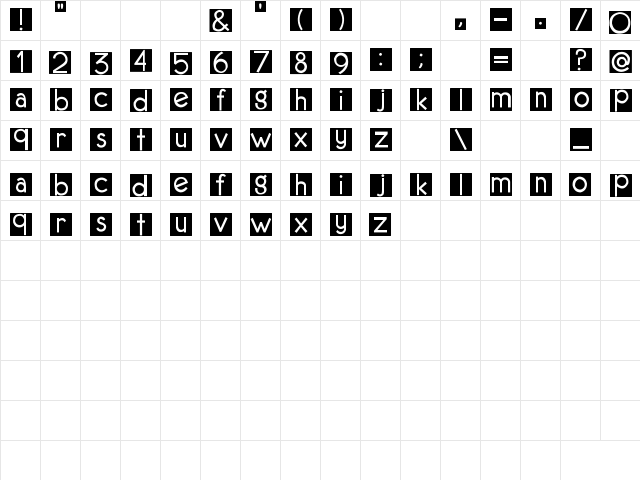
2Peas Oxford Street 2Peas Oxford Street Font Preview
2Peas Oxford Street 2Peas Oxford Street
2Peas Oxford Street 2Peas Oxford Street Font Details
| Style | 2Peas Oxford Street |
| Foundry | High-Logic |
| Designer | High-Logic - Erwin Denissen 1999 |
Design Context for 2Peas Oxford Street Typeface
2Peas Oxford Street is a composed and adaptable typeface that performs quietly and consistently across a wide range of design contexts.